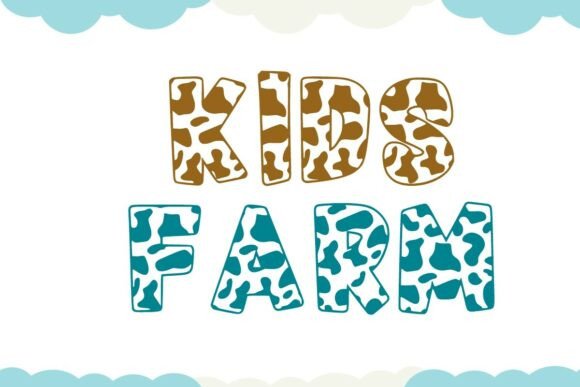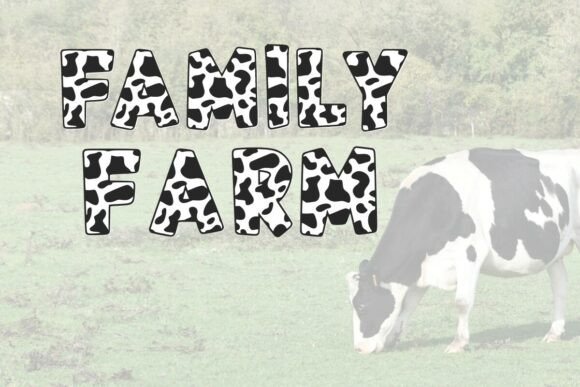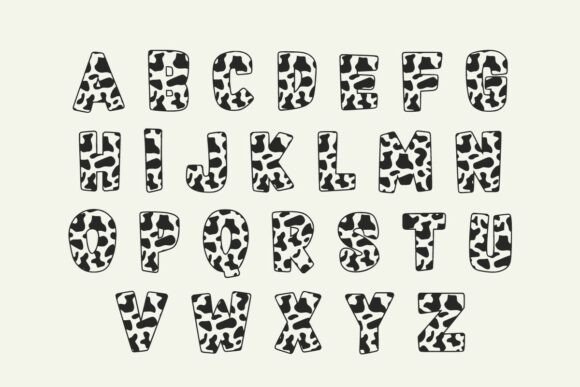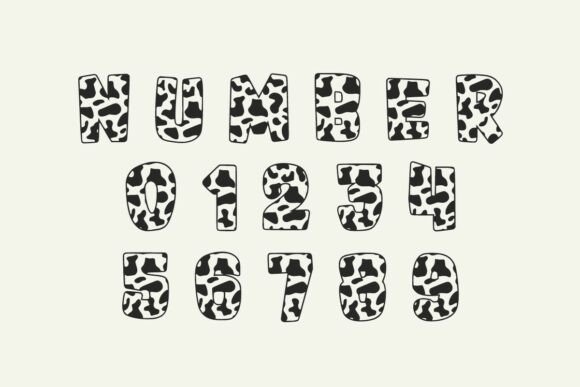
Cow Milk Font: A Typographic Marvel for Designers and Crafters
Typography is an essential aspect of design, and the right font can elevate a project from ordinary to extraordinary. If you’re a designer or crafter looking for a unique and versatile font to add to your arsenal, look no further than Cow Milk Font. This fantastically designed font combines a streamlined cow-inspired pattern with a striking black and white palette, making it perfect for injecting life into your most innovative concepts.
The Inspiration Behind Cow Milk Font
Cow Milk Font draws inspiration from the humble cow, an iconic symbol of rural landscapes and rustic charm. The font’s design team sought to capture the essence of the cow’s gentle yet striking appearance, translating it into a typographic masterpiece that’s both elegant and playful. The result is a font that’s equal parts sophisticated and whimsical, making it suitable for a wide range of design applications.
Design Features of Cow Milk Font
Cow Milk Font boasts a range of design features that make it a standout in the world of typography. Some of its key characteristics include:
- Streamlined cow-inspired pattern: The font’s unique design features a stylized cow pattern that’s both modern and nostalgic.
- Striking black and white palette: The font’s bold black and white color scheme makes it perfect for designs that require high contrast and visual impact.
- Versatile typography: Cow Milk Font is designed to be highly versatile, making it suitable for use in a variety of design contexts, from logos and branding to packaging and advertising.
Using Cow Milk Font in Your Designs
Cow Milk Font is an incredibly versatile design that can be used in a wide range of applications. Here are just a few ideas to get you started:
- Logos and branding: Use Cow Milk Font to create a unique and memorable logo that stands out from the crowd.
- Packaging design: Add a touch of whimsy and charm to your packaging designs with Cow Milk Font’s playful typography.
- Advertising and marketing: Use Cow Milk Font to create eye-catching ads and marketing materials that grab attention and leave a lasting impression.
- Stationery and crafts: Cow Milk Font is also perfect for use in stationery and craft projects, such as handmade cards, invitations, and gift tags.
Tips for Getting the Most Out of Cow Milk Font
To get the most out of Cow Milk Font, here are a few tips to keep in mind:
- Experiment with different sizes and colors: Don’t be afraid to experiment with different sizes and colors to find the perfect combination for your design.
- Pair with complementary fonts: Cow Milk Font pairs well with a range of other fonts, so don’t be afraid to experiment with different combinations to find the perfect match.
- Use in combination with images: Cow Milk Font looks great when used in combination with images, so consider using it to add typography to your photos or illustrations.
Cow Milk Font is a typographic marvel that’s sure to delight designers and crafters alike. With its unique cow-inspired design, striking black and white palette, and versatile typography, this font is perfect for adding a touch of whimsy and charm to your designs. Whether you’re working on a logo, packaging design, or craft project, Cow Milk Font is sure to bring your ideas to life in a way that’s both elegant and playful. So why not give it a try and see the difference it can make in your designs?